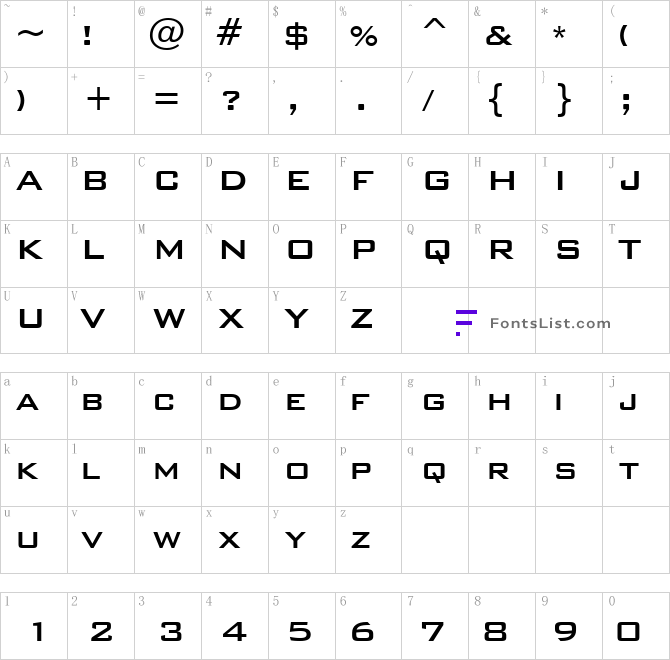
- Font Name:BankGothic Md BT
BankGothic-Md-BT-Medium.ttf is a very beautiful artistic font, BankGothic-Md-BT-Medium.ttf is widely used in the design and printing of various books and pictures,BankGothic-Md-BT-Medium.ttf has a strong visual impact,BankGothic-Md-BT-Medium.ttf is a commonly used font in newspapers, magazines and books, and is used in posters, e-commerce Poster design, store design, logo design, font design and other fields.BankGothic-Md-BT-Medium.